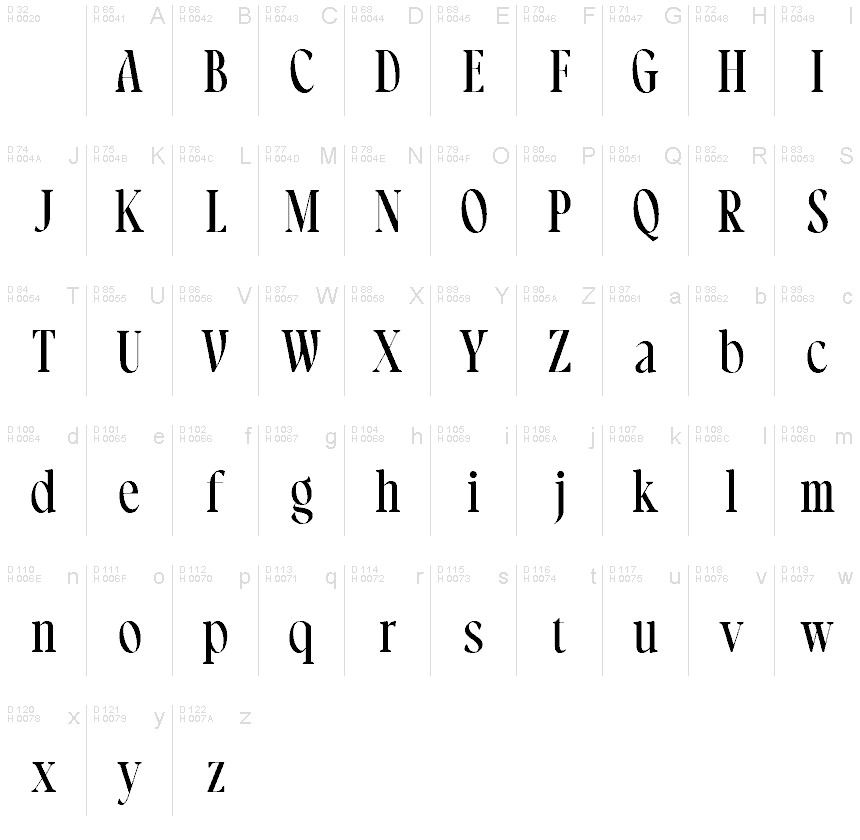
CS Hadwin Demo Regular
CS Hadwin font by Craft Supply Co. is a condensed serif font whose letters carry an elegant and sophisticated look. Thin yet strong, the classic appearance of each character grants them a formal tone with traditional influences that can only present style in its purest forms.
This free serif font combines modernity and luxury for branding designs related to cosmetics, perfumes, fashion items, and magazines as well as editorial designs like magazines or furniture catalogs. Use it for logo designs that demand elegance like jewelry or clothing logos and allow both the smallest details and large headlines to bring out its superior quality.